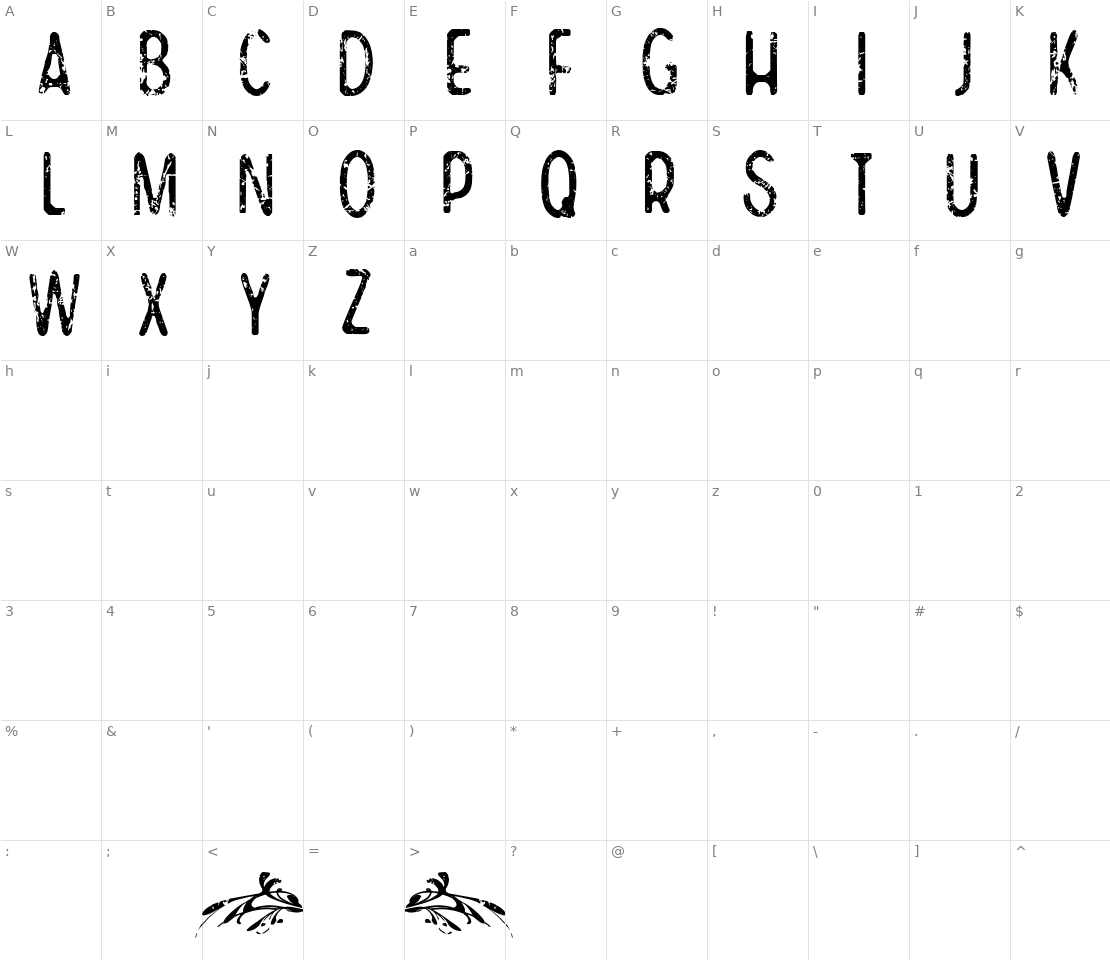
CF Same Old Story
CF Same Old Story is a bold, uppercase display face from Cloutierfontes with a heavily worn texture that makes every letter look like it was stamped with a dirty ink block. The distressed edges and uneven ink coverage give it a gritty, vintage quality that feels lived-in rather than artificially roughed up. Best for headlines, poster work, and packaging where you want something that carries the visual weight of old print shops and faded signage.